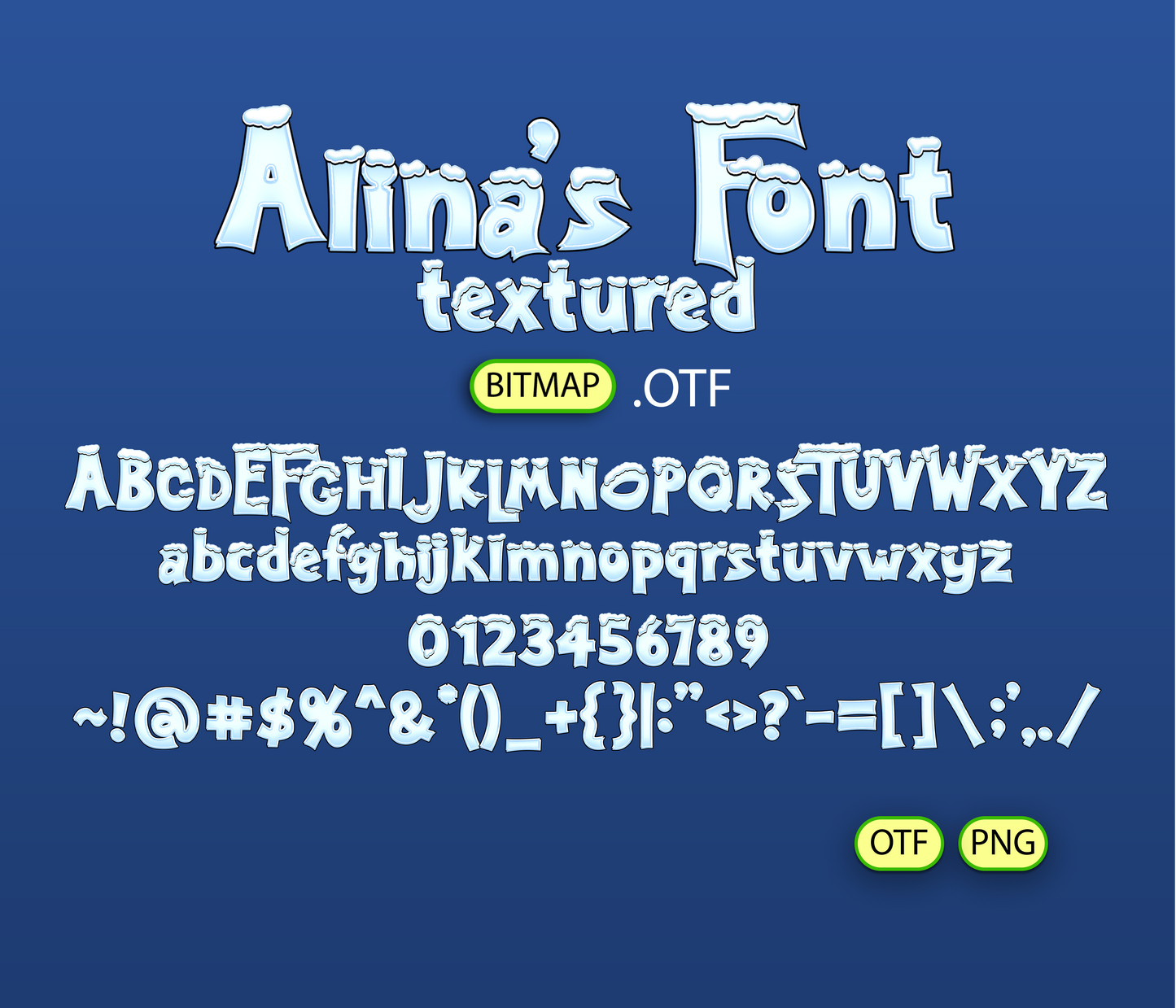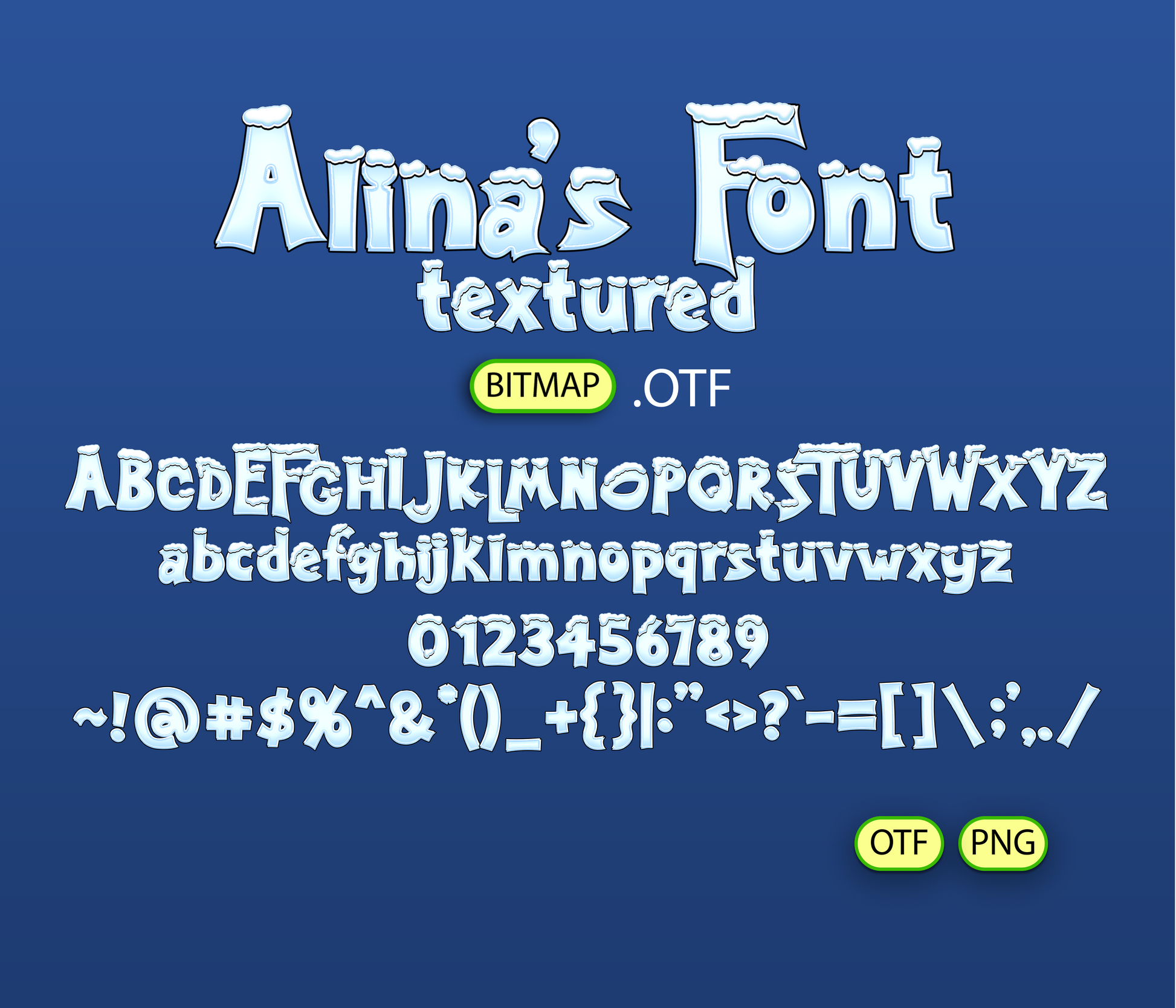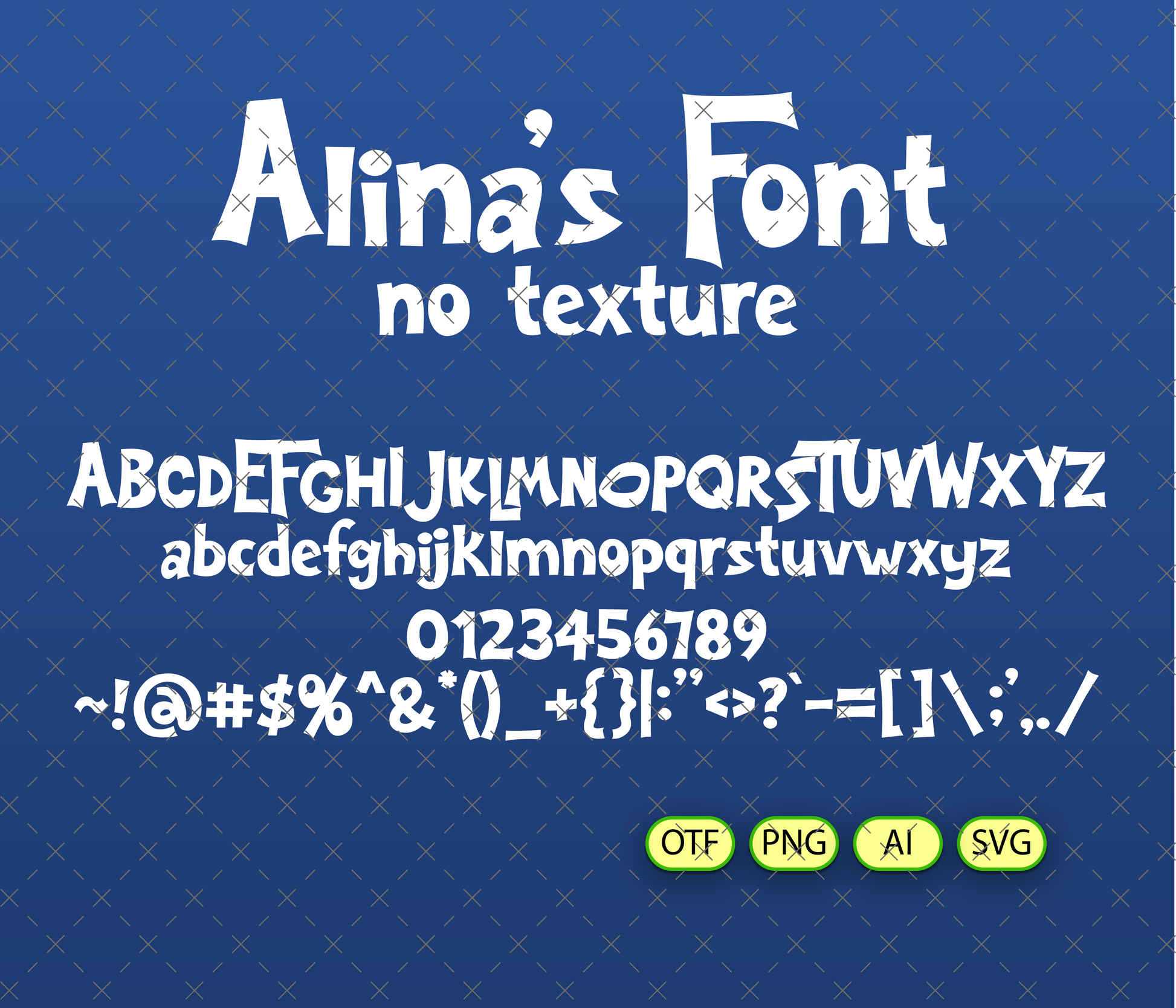
Frosty Companion Font Textured
Step into the whimsical universe of icy wonder with our Frosty Companion font, capturing the essence of wintry cheer and frozen fantasy. Perfect for yuletide aficionados, cold-season specialists, festivity planners, and graphic artists, this font brings the animated, snow-dusted spirit of treasured winter narratives to your projects. Create sentimental seasonal materials, merchandise, or digital content with the spirited energy of iconic frosty figures.
Our Frosty Companion font features jovial, textured typography and glacier-inspired characters reflecting the world of arctic merriment. Ideal for:
- Event Promotions: Create captivating invitations, advertisements, and signage for yuletide events, icy festivals, and themed celebrations that capture the spirit of snowbound revelry
- Merchandise Design: Perfect for wearables, wall art, and novelty items that showcase the enchanting aesthetic of winter mythology and frosty nostalgia
- Digital Media: Enhance digital properties, web journals, and networking platforms with spirited headers and graphics that express the delight of frozen landscapes
- Seasonal Content: Add distinctive character to festive stationery, winter illustrations, and imaginative designs inspired by legendary snow beings
- Personal Projects: Bring holiday spirit to photo albums, handcrafted projects, and domestic decorating inspired by the world of chilly escapades
Our font pays tribute to the iconic world of seasonal lore and winter storytelling, empowering your designs with its buoyant and endearing spirit. Whether crafting promotional materials, designing merchandise, or adding a festive touch to personal projects, this font communicates the cozy essence of wintertime bliss. Ready to inject glacial magic into your creations? This font is your key to exciting, impactful design.